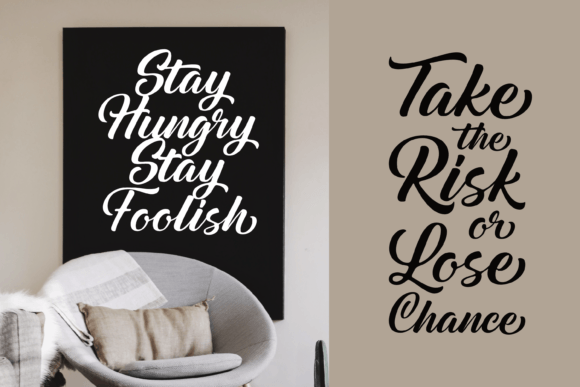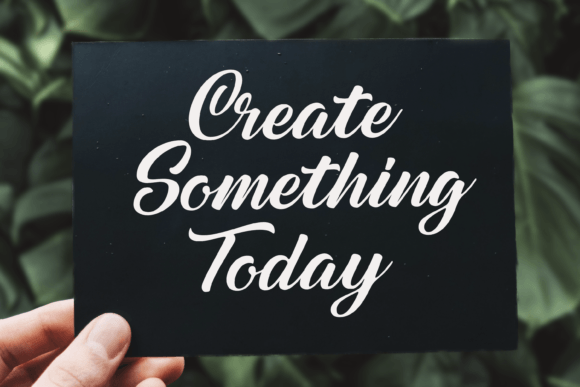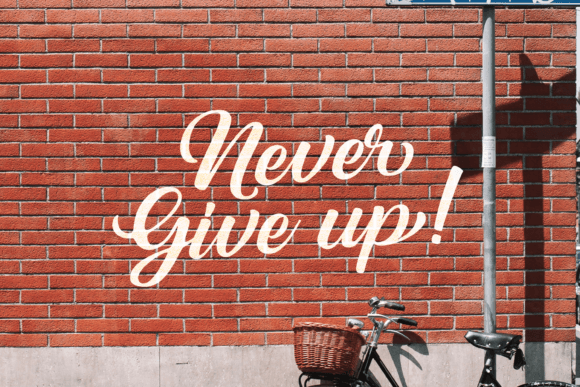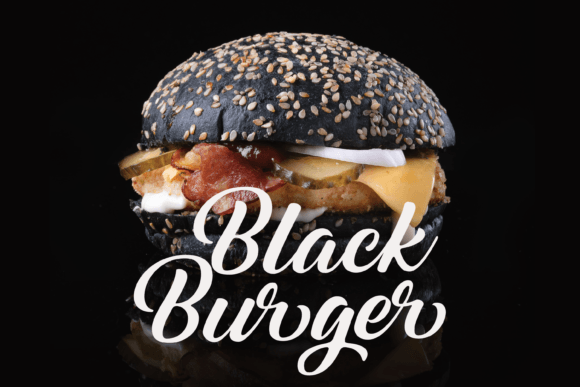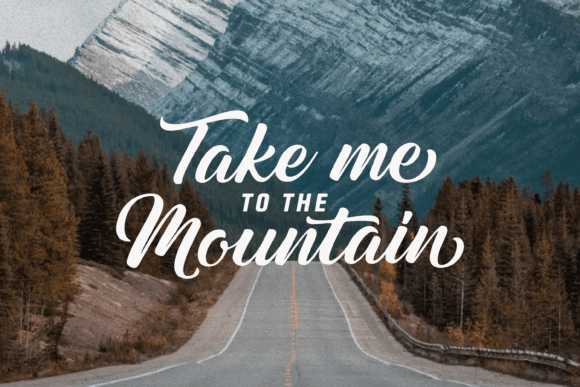
Quicker Font
About Quicker Font
Quicker is a retro and playful script font crafted to add tons of stylish character to your designs. Add it confidently to your projects and you will love the results!